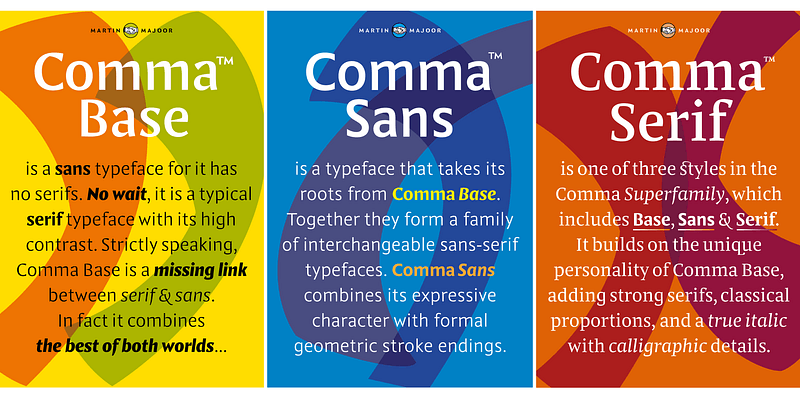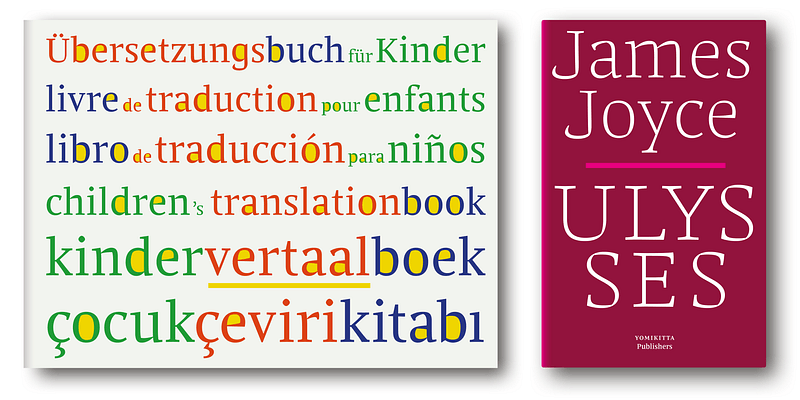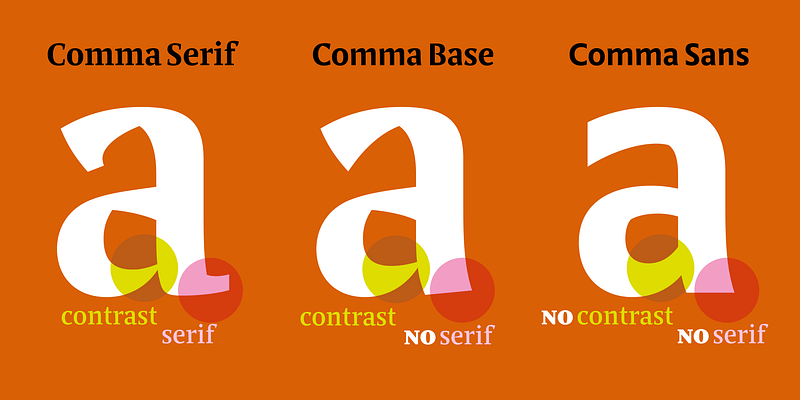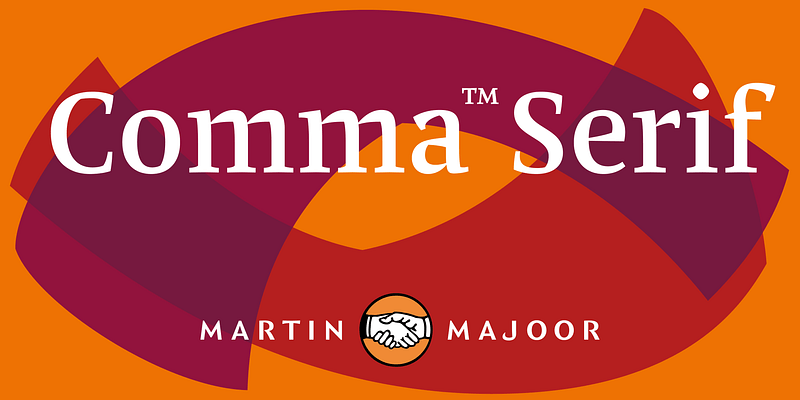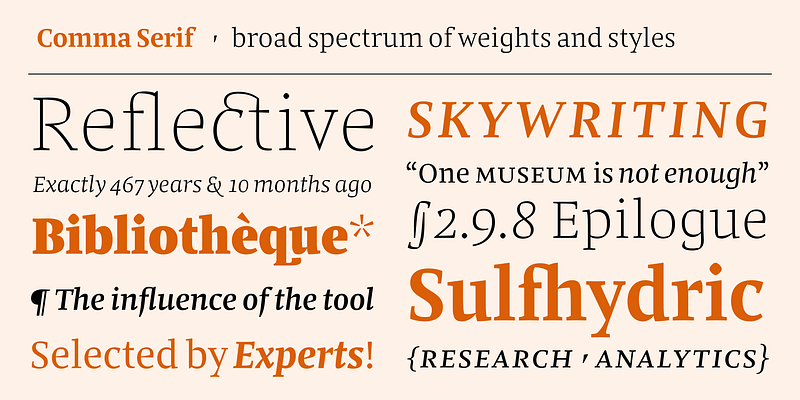
The Comma trilogy is a range of three closely connected typefamilies (Comma BASE, Comma SANS, Comma SERIF), each with its own voice.
Comma BASE is not a typical sans; its unusually high contrast pushes it into serif territory.
Comma SANS uses the skeleton of Comma Base for geometric, low-contrast characters.
Comma SERIF carries the warmth and angularity of Comma Base, while adding strong serifs, classical proportions, and a true italic with calligraphic details.
Comma SERIF has eight weights, in both regular and italic. It is a workhorse with character. Pairing Comma SERIF with Comma SANS is a great way to set different sorts of information, like text, captions and titles, it is an ideal combination for editorial use. Its powerful uniwidth design is highly valued by designers who switch weights without disturbing the flow.
In 2021 Martin Majoor launched an independent type foundry under his own name. Majoor is known for his award-winning typefaces (Scala, Seria, Nexus) that were originally published by Fontshop. His Scala and Scala Sans are considered ‘classics’ and are among the first digital typefaces. In collaboration with Jos Buivenga he designed the large and successful Questa family. In his latest typeface ‘Comma Base’, he explores the basic shapes of a typeface, with both typical sans features and at the same time serif elements. It can be seen as a typeface featuring the best of both worlds. Comma Base is the first typeface to be released by his own foundry.